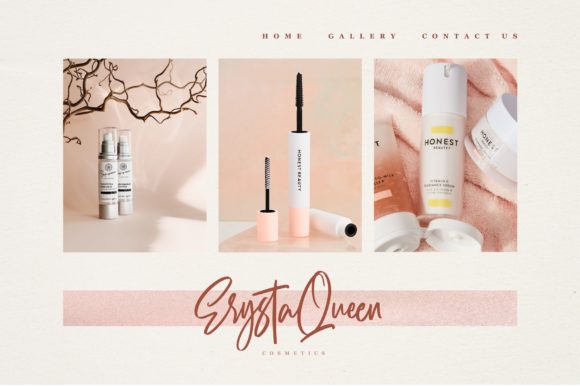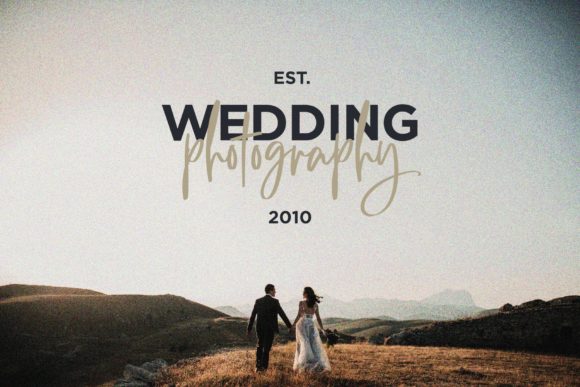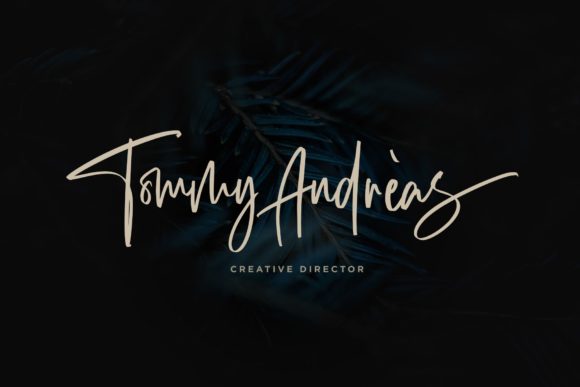
Introduction to Exposedly Font
Exposedly is an expertly crafted script, perfect for adding a charming vibe to your next design idea.
Key Features of Exposedly Font
Why Choose Exposedly Font?
Exposedly Font offers exceptional quality and versatility, making it a valuable addition to your design toolkit. Whether you’re creating for personal projects or commercial use, Exposedly Font delivers professional results.